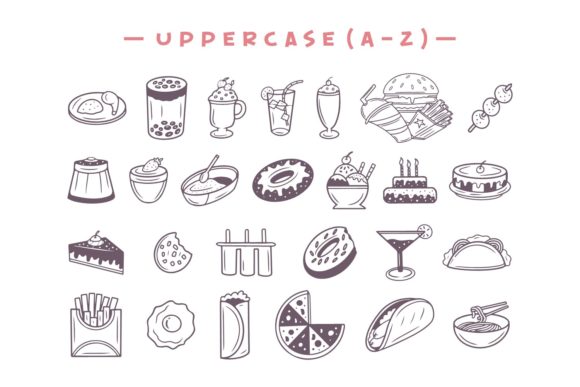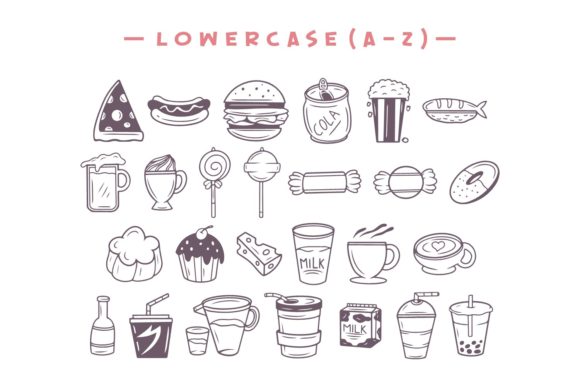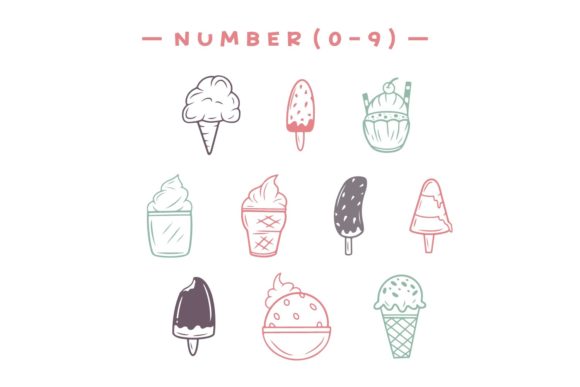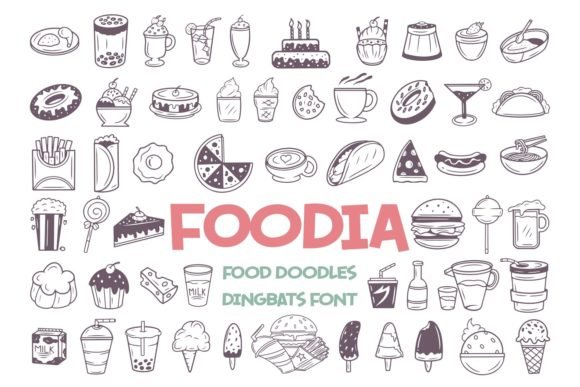
Introduction to Foodia Font
Foodia is a lovely and useful dingbats font.
This all food font will make each of your projects more interesting and tasty Add it confidently to your library, and you will love the results.
Foodia Font offers exceptional quality and versatility, making it a valuable addition to your design toolkit. Whether you’re creating for personal projects or commercial use, Foodia Font delivers professional results.